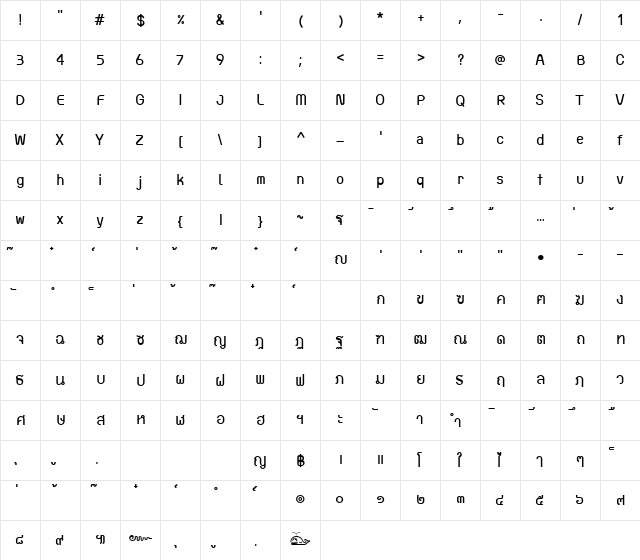
TP Tankhun Bold
| Foundry | Tippawan Sumnavong |
| Designer | Tippawan Sumnavong |
Design Context for TP Tankhun Typeface
TP Tankhun is a composed and adaptable typeface that performs quietly and consistently across a wide range of design contexts. Its bold stroke weight gives it real presence on the page.